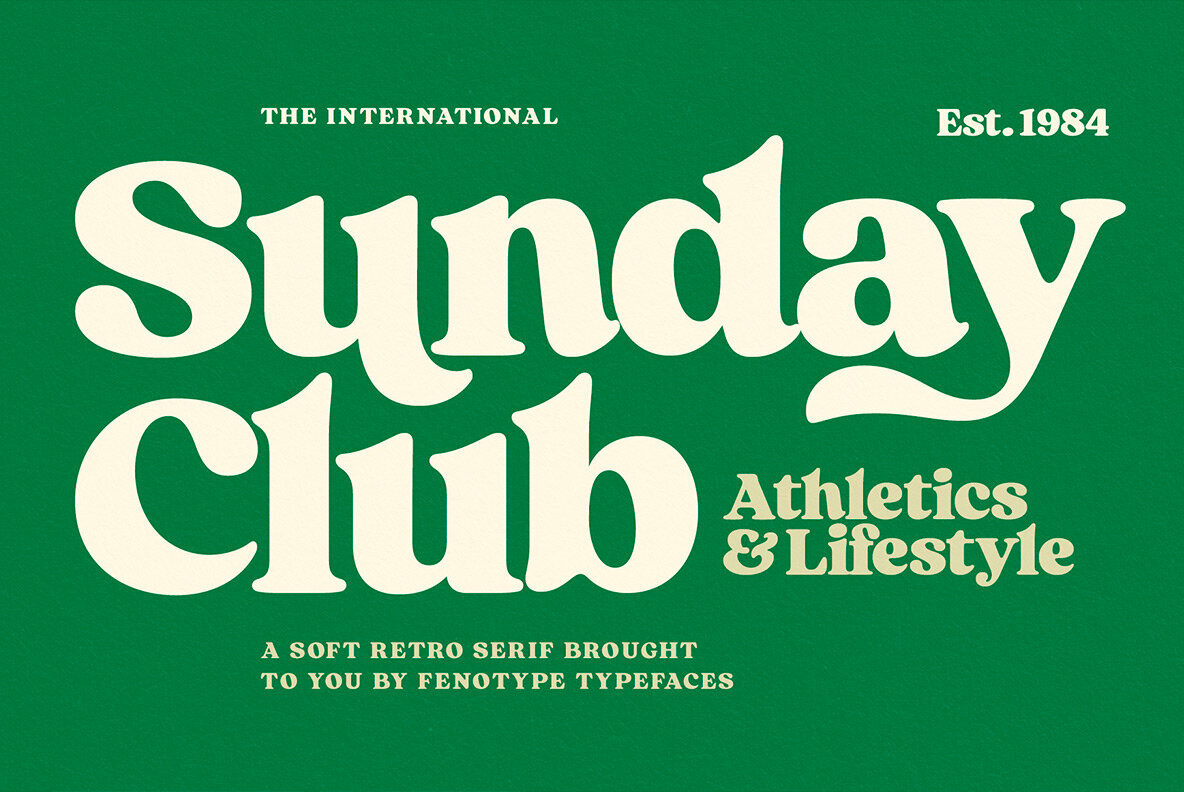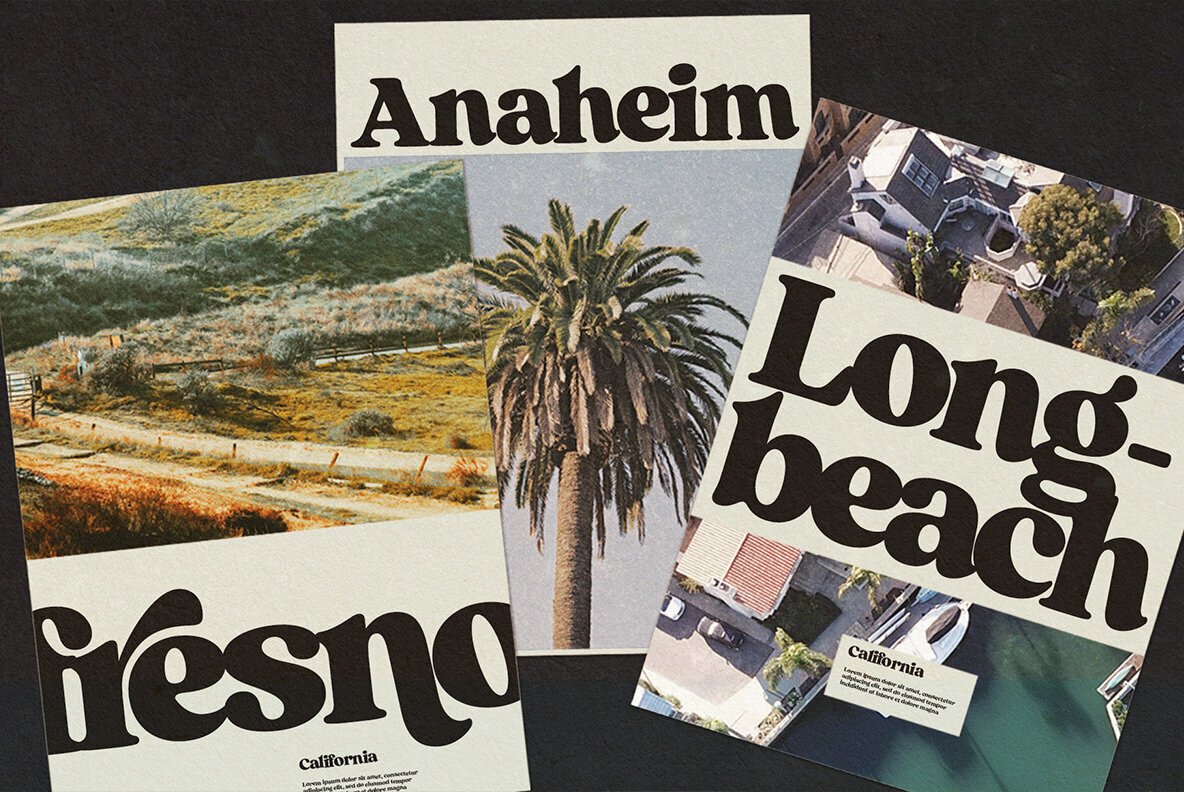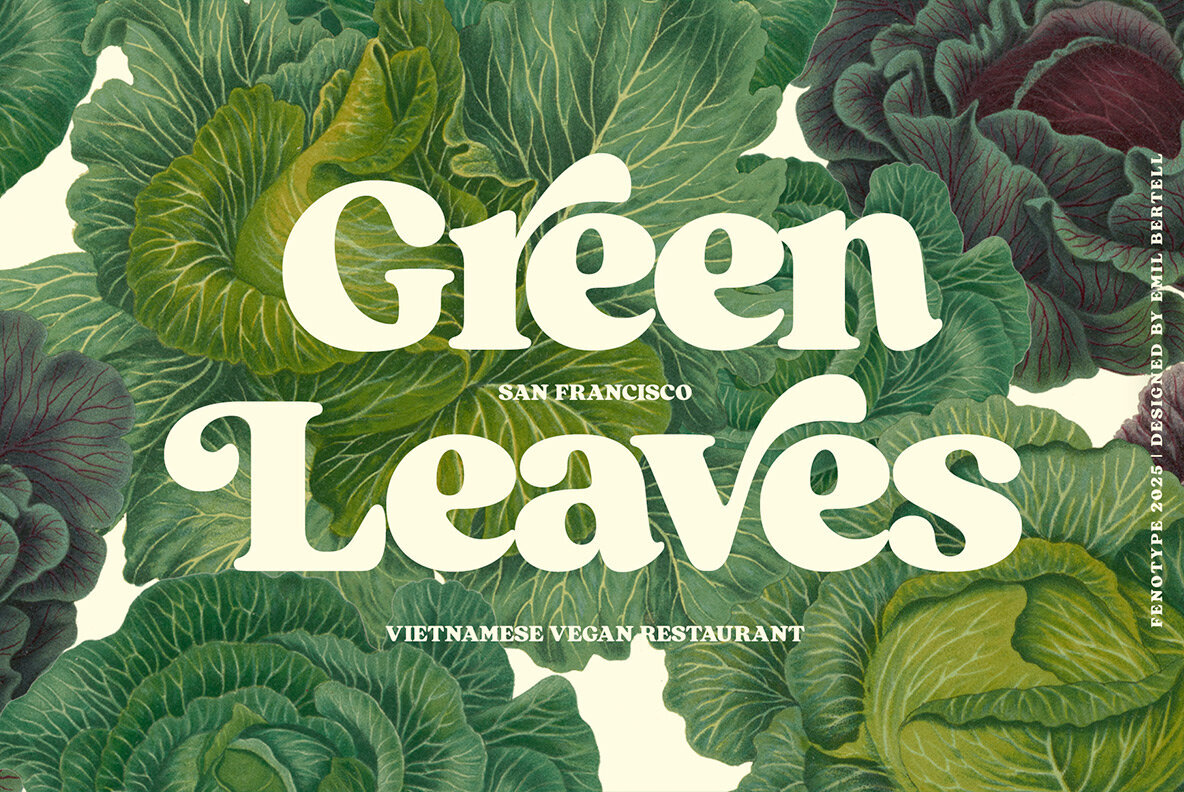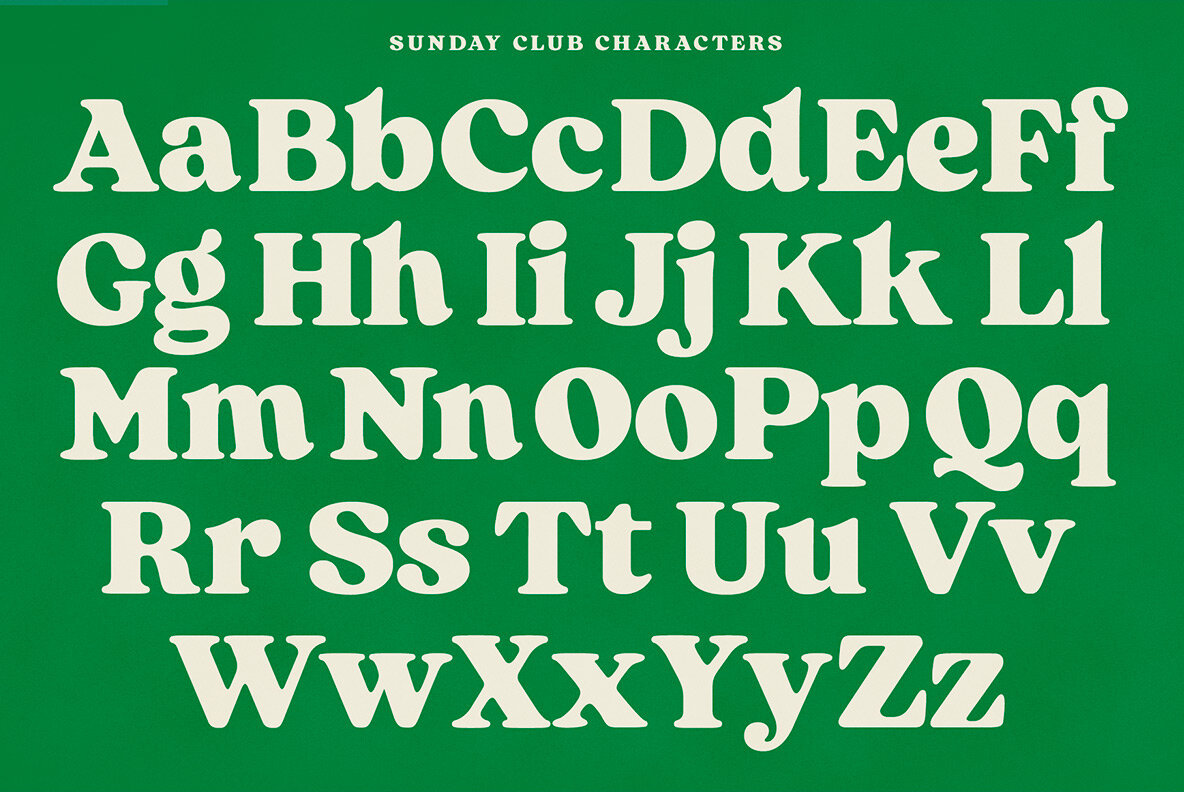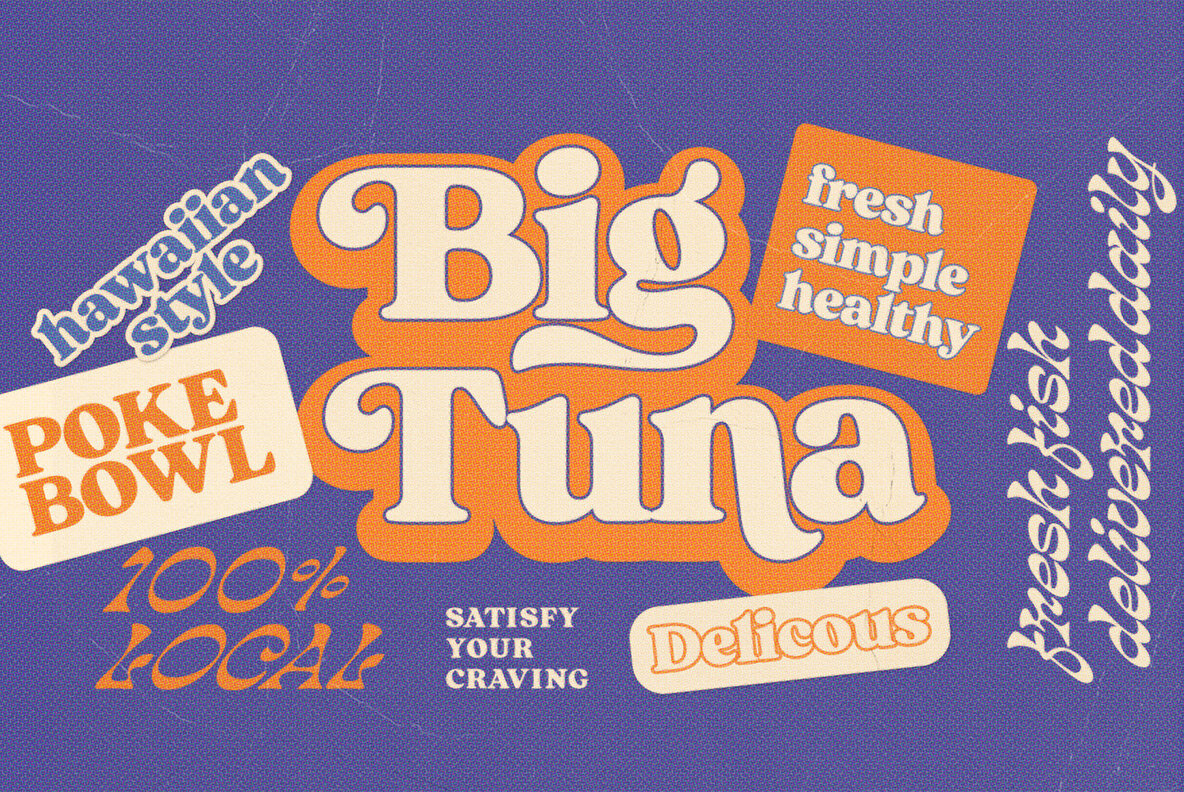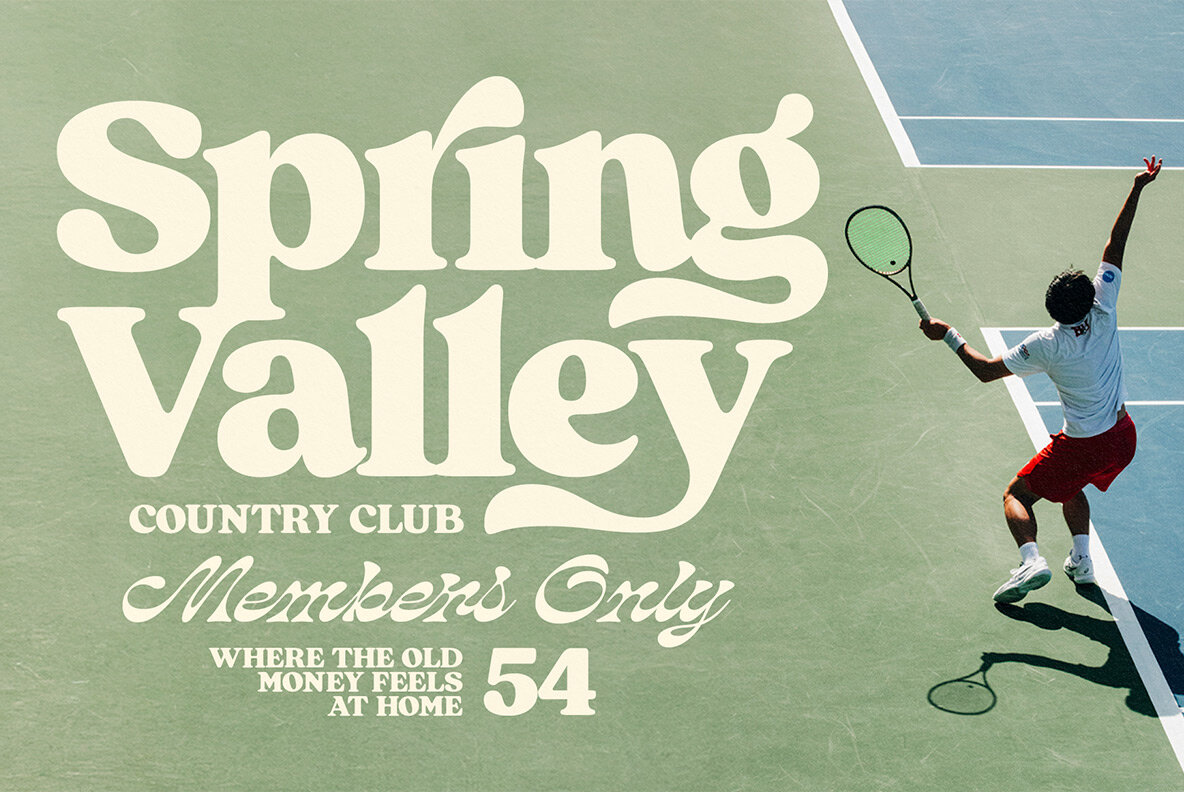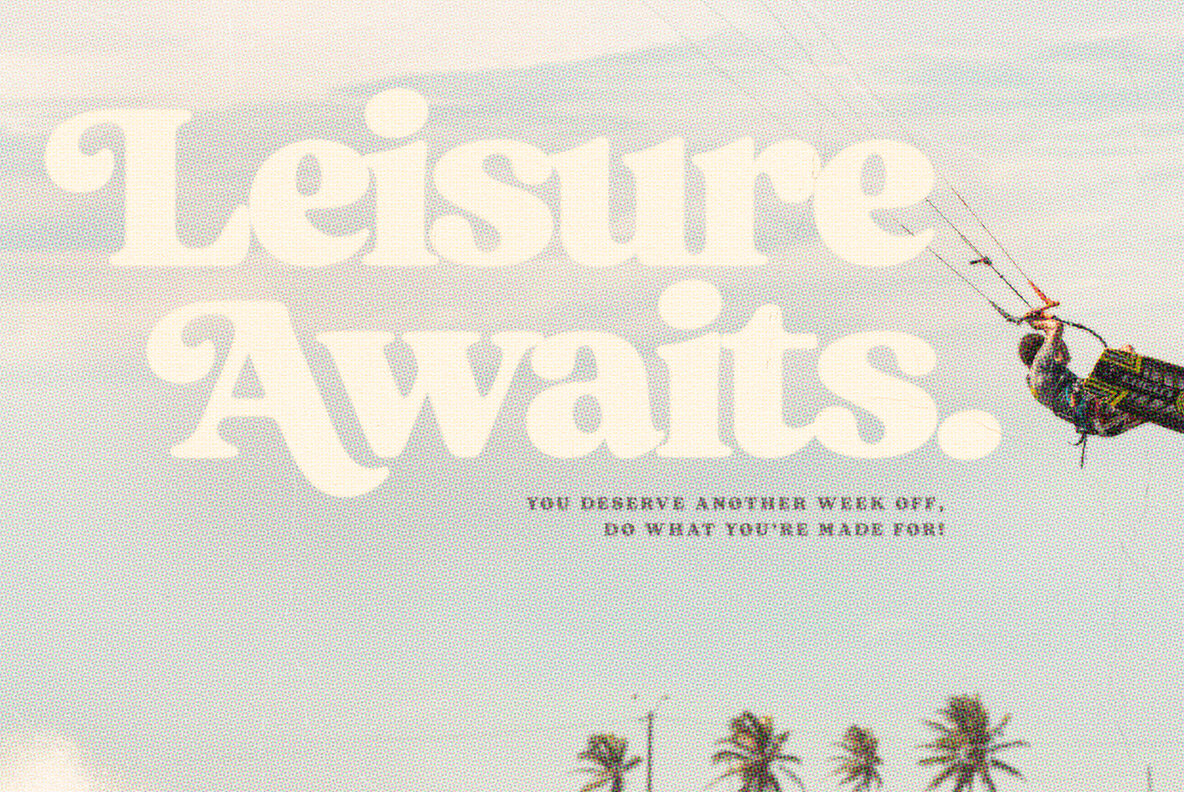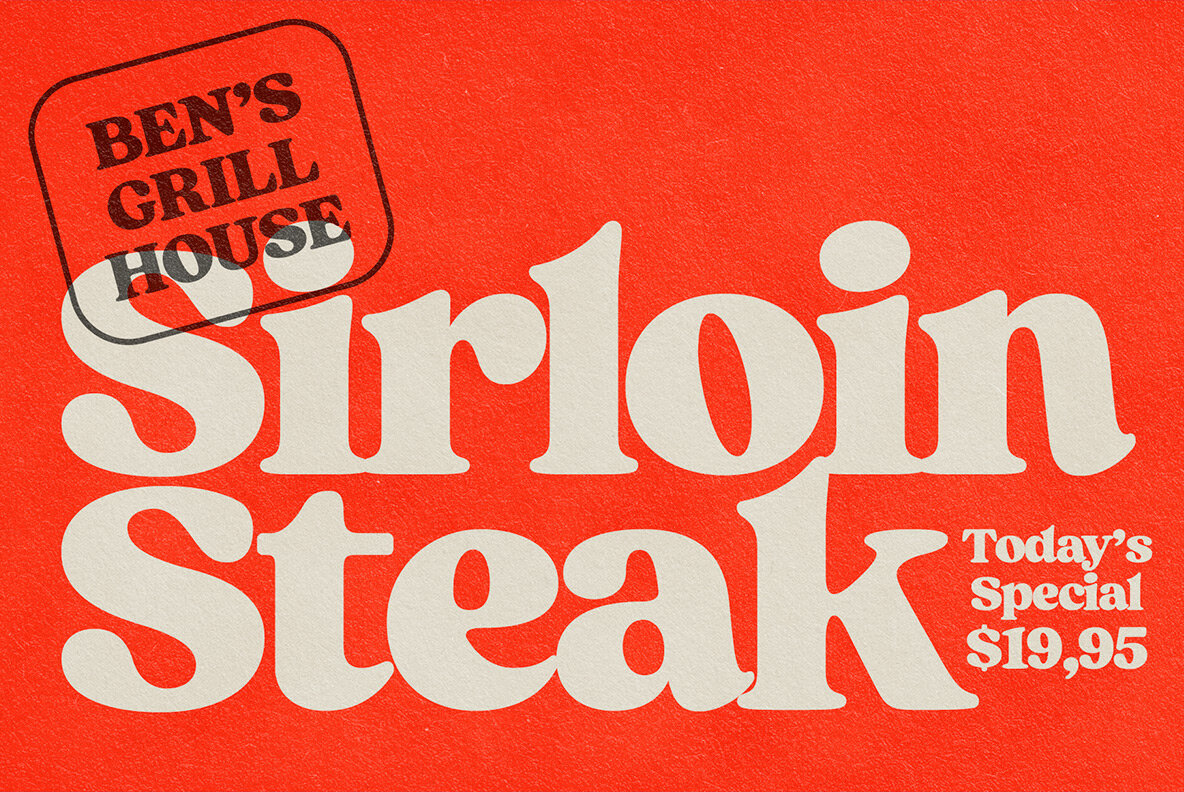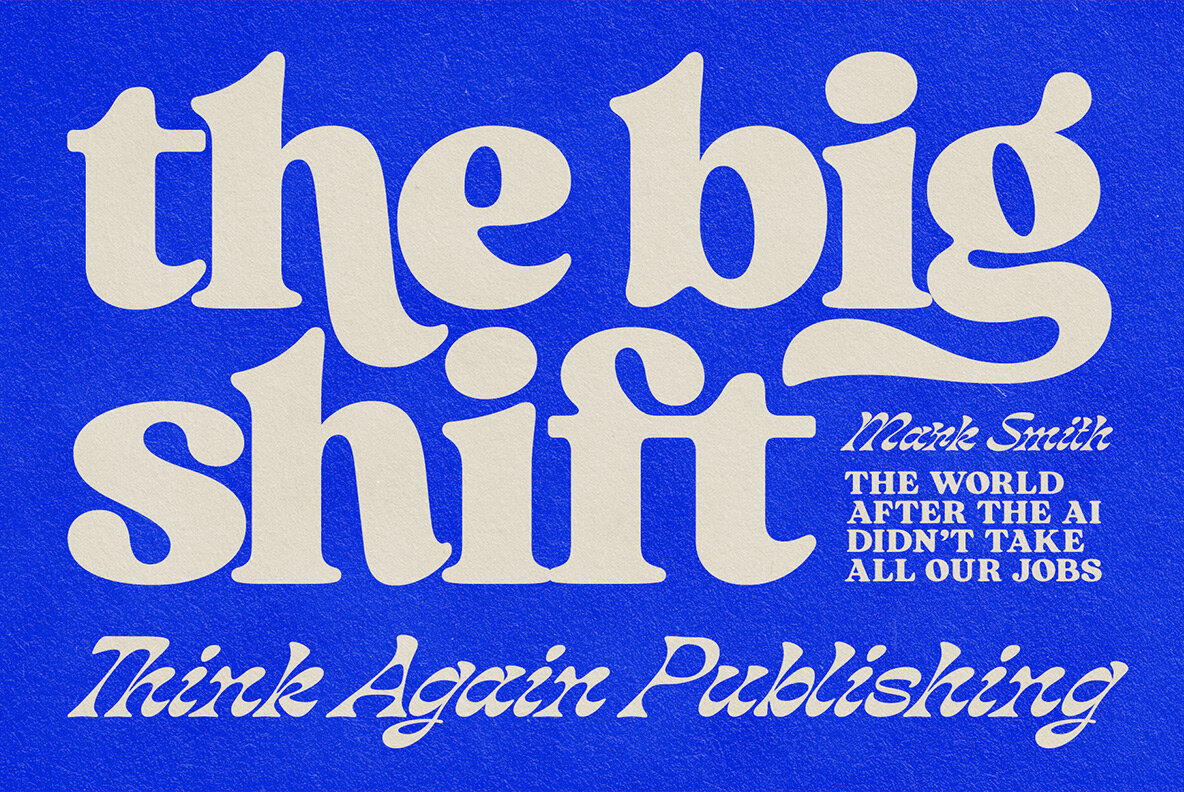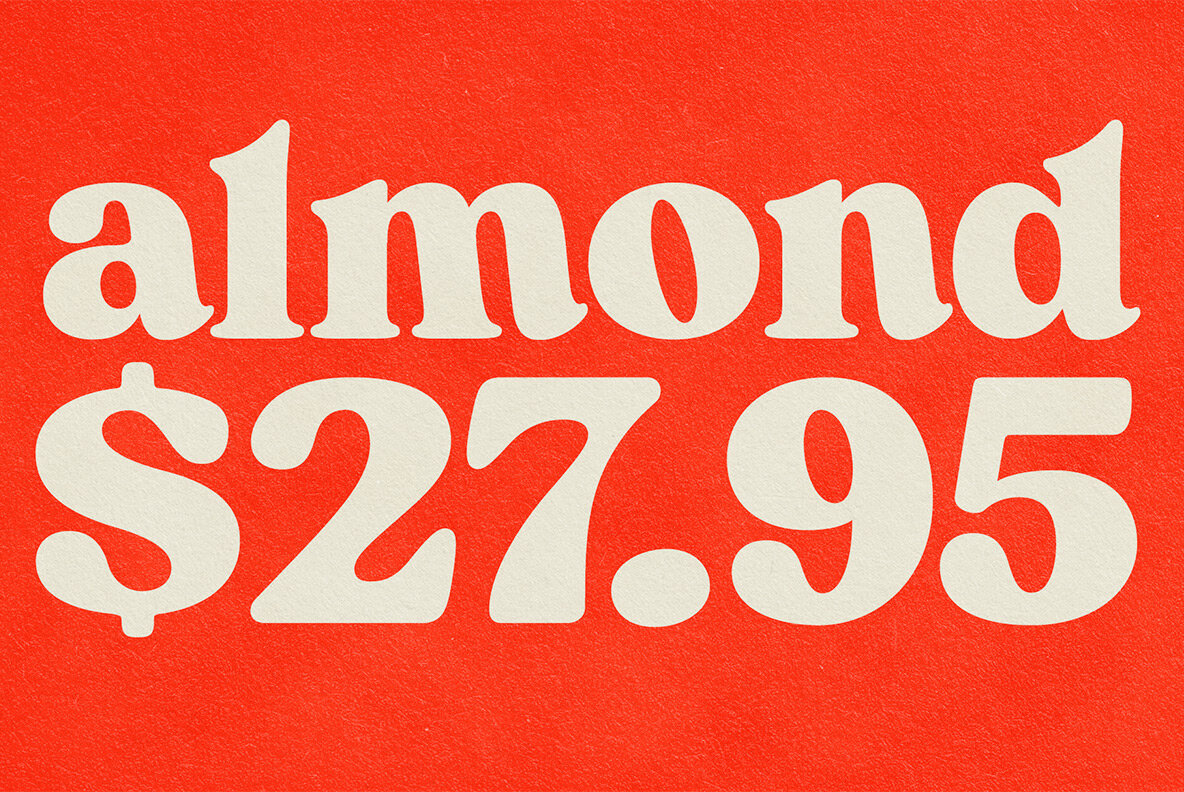
Sunday Club Font
Sunday Club Bold
Sunday Club embodies a harmonious fusion of warm nostalgia with a dash of contemporary upper-middle-class confidence. While echoing the past in its design principles, it seamlessly adapts to contemporary demands.Sunday Club: Elegant Nostalgia Meets Modern Flair